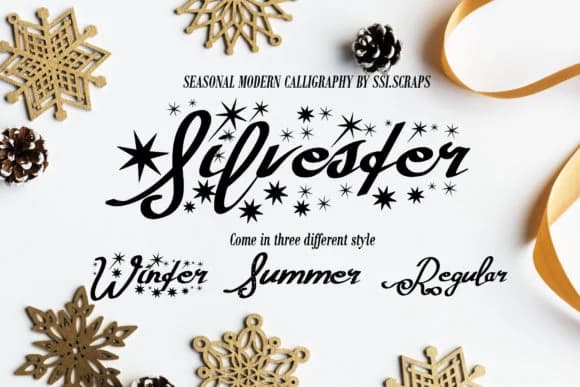
Imagine designing invitation suites for a winter wedding where you need hand-drawn elegance without investing months in custom lettering. Silvester Font by Syukursetiyadi brings modern calligraphy into a practical, usable typeface that delivers personality in every letter. The family includes three distinct styles: a clean regular version for polished work that flows smoothly across long text, a holiday variation loaded with festive flourishes and ornamental touches, and a grunge cut that abandons refinement for raw, deliberate attitude.
Holiday greeting card sets gain immediate character from the festive style's generous ornamentation and careful detailing. Wedding invitation suites draw sophistication from the regular cut's fluid letterforms and elegant proportions, working beautifully across both invitations and reply cards. The grunge variant excels in band poster designs, album artwork, and alternative book layouts that demand visual edge and personality. Boutique skincare packaging finds genuine warmth and approachability in the script's handwritten quality. DIY craft labels, small-batch product branding, and Etsy shop photography all benefit from the calligraphic presence without feeling heavy or overwrought. Since the script remains legible at large display sizes, you can confidently apply it across poster layouts, digital banners, and product packaging without sacrificing readability.
Silvester Font is a script font that shines as a display or heading face. Pair it with a clean sans-serif or serif font for body text β the contrast creates a clear hierarchy while the two styles stay balanced and easy to read.